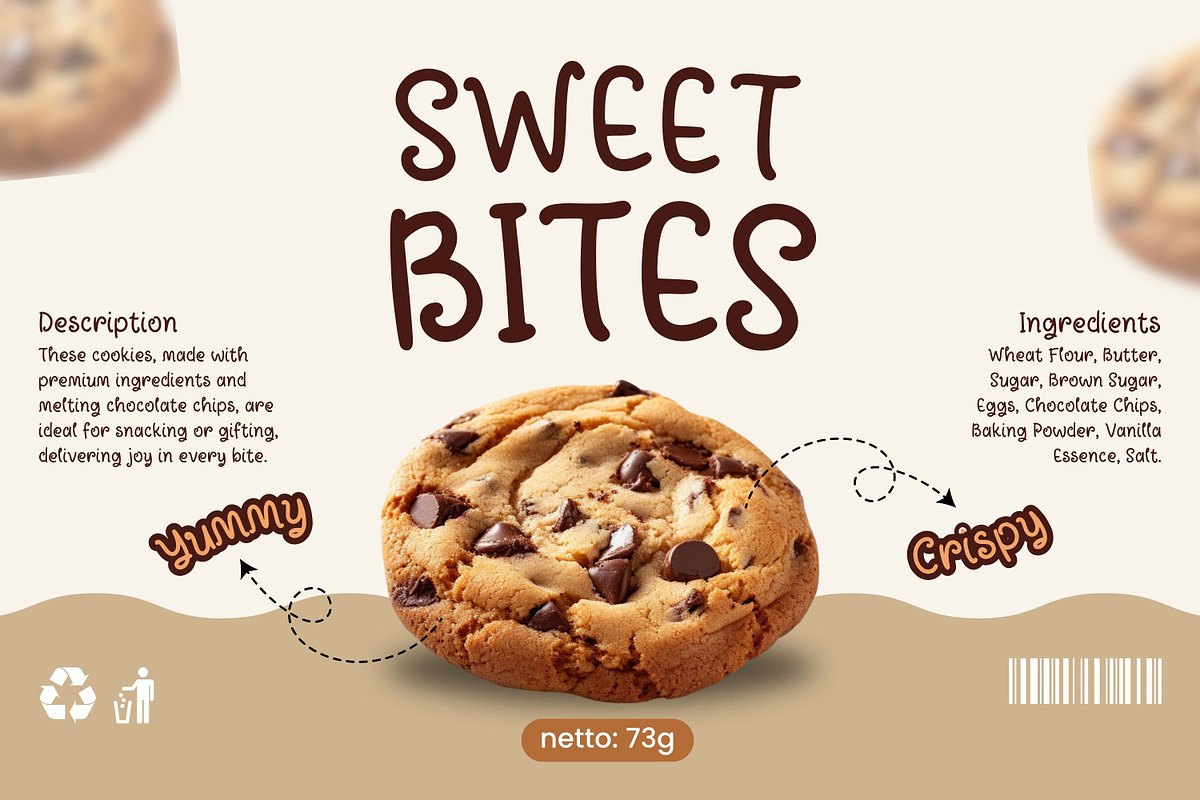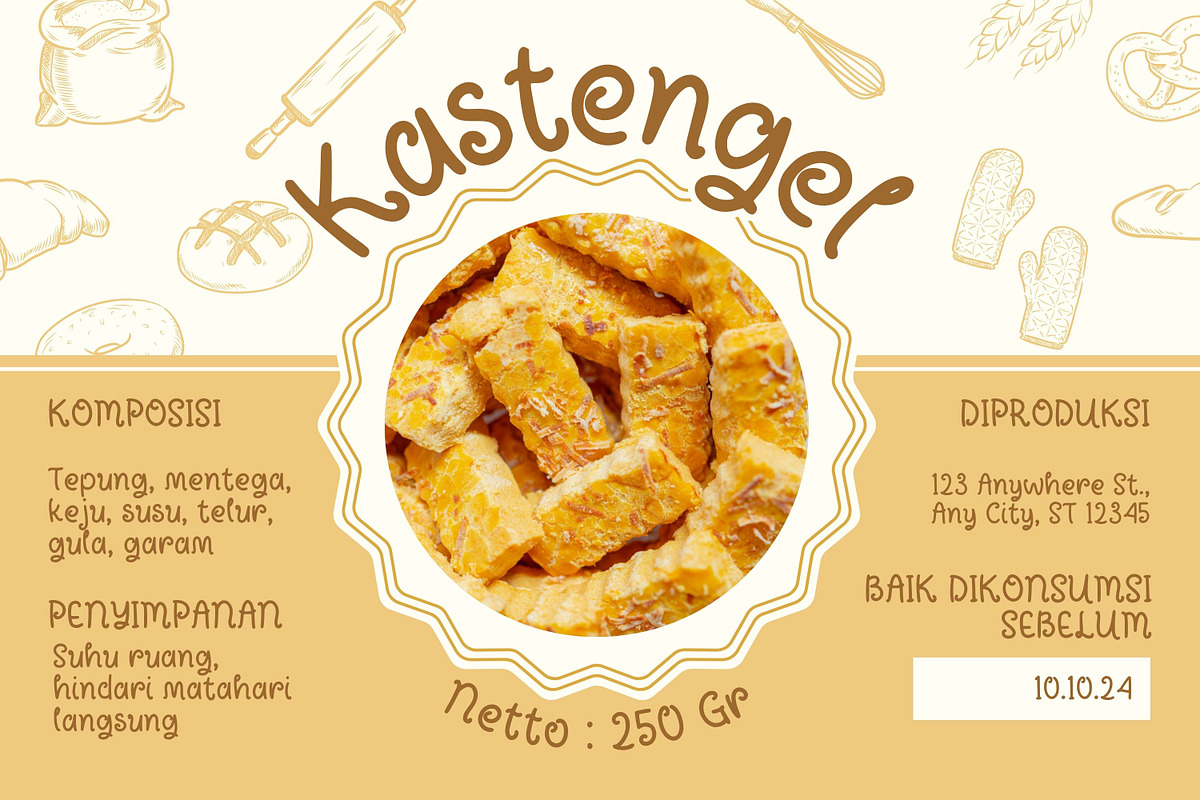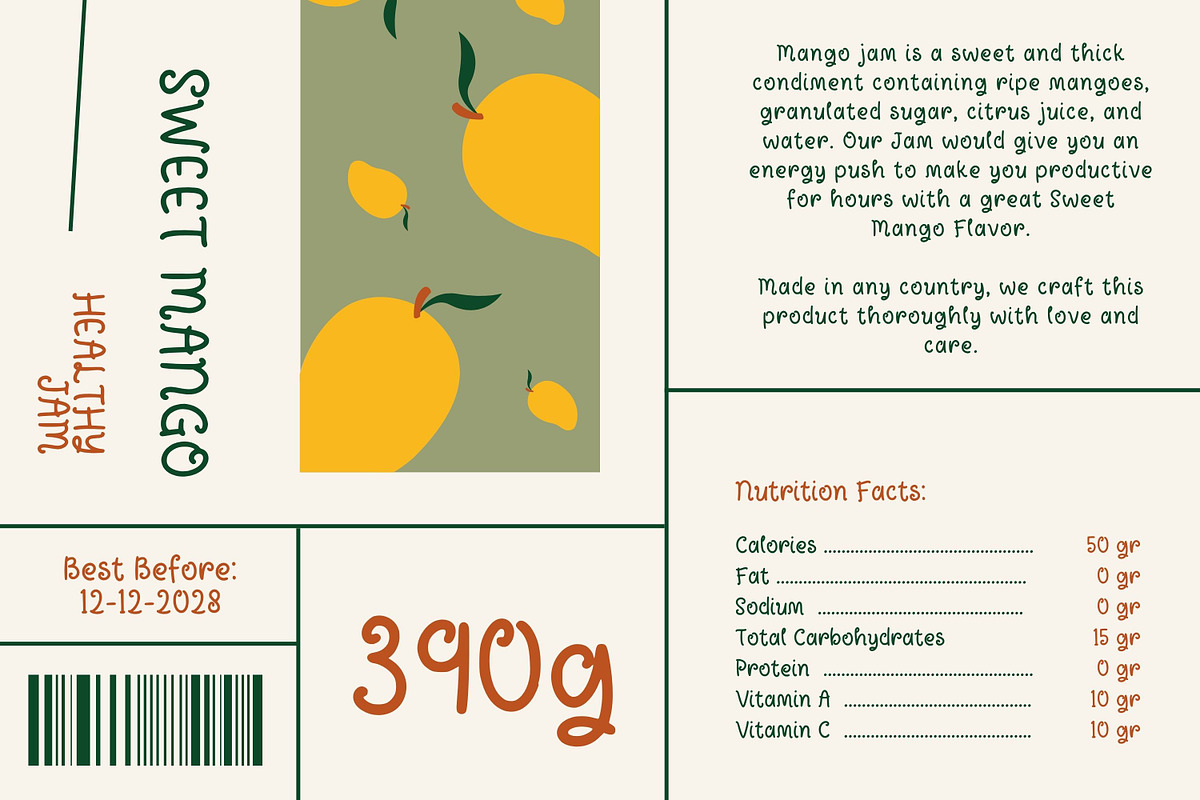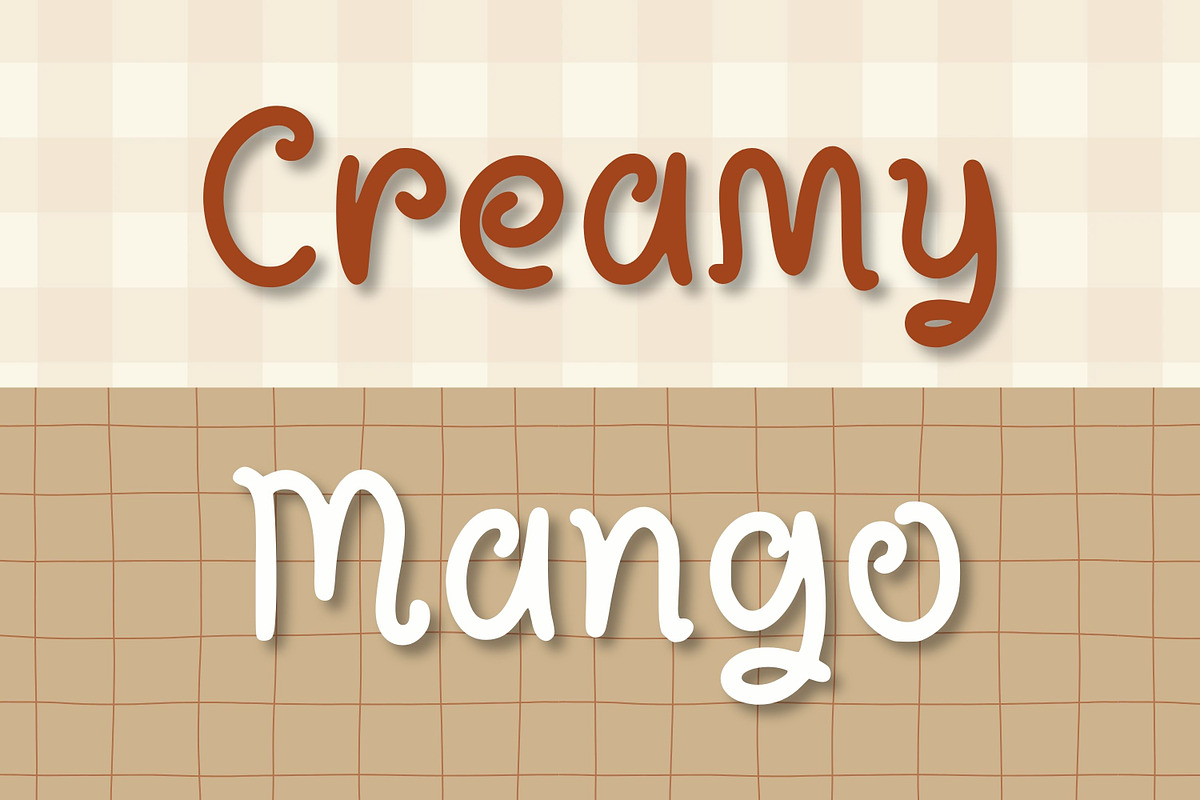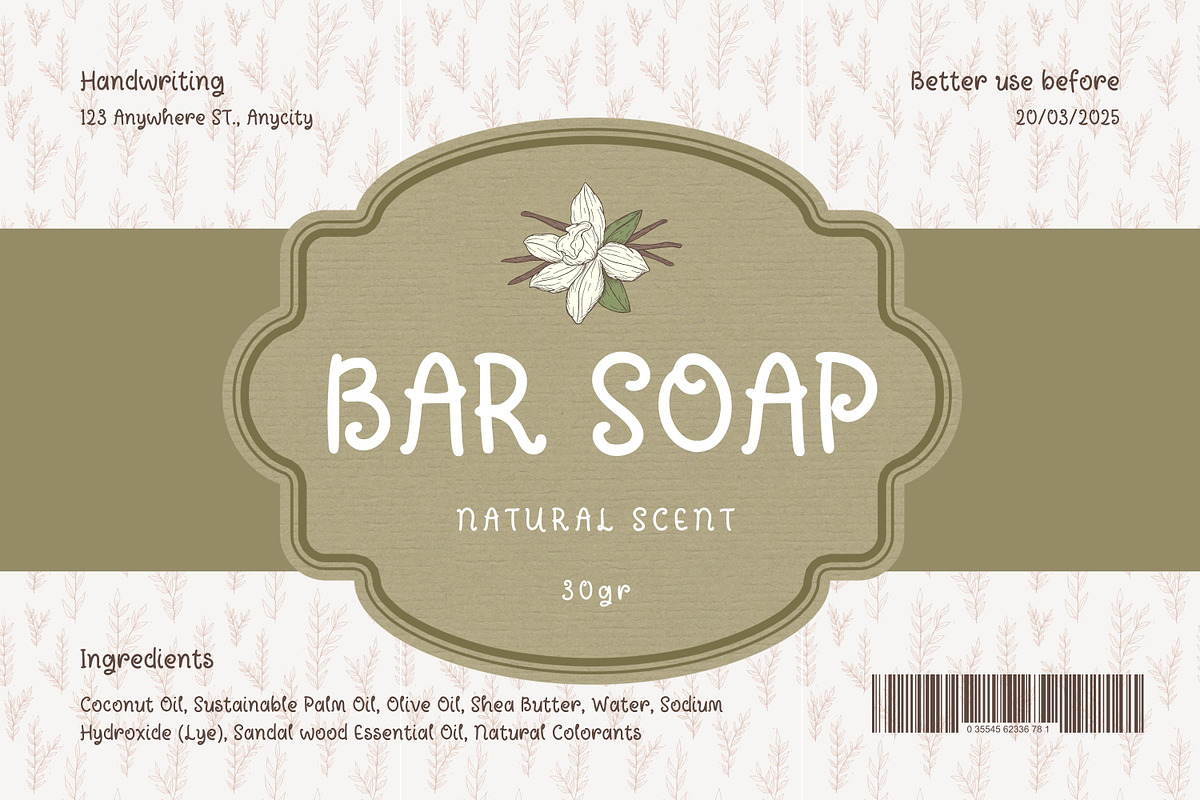
Creamy Mango
Indulge in the sweet, fluid charm of the Creamy Mango font, a delightful script that feels as smooth and satisfying as its namesake.
This friendly Creamy Mango typeface features bouncy characters and rounded terminals, making it an ideal choice for cafe menus, bakery branding, and cozy lifestyle blogs. When you use the Creamy Mango font, you inject a sense of warmth and approachability into your text that invites the reader in. This Creamy Mango typeface works beautifully for product labels and “Thank You” cards, especially when paired with warm, sun-kissed colors and soft checkered patterns. Its natural flow and playful rhythm ensure that your designs feel personal and artisanal, making it a perfect match for any brand that values a “home-grown” and sweet personality.
Ideal for embellishing design projects, highlighting crucial elements in recipes, or adding an attractive flair to product packaging.